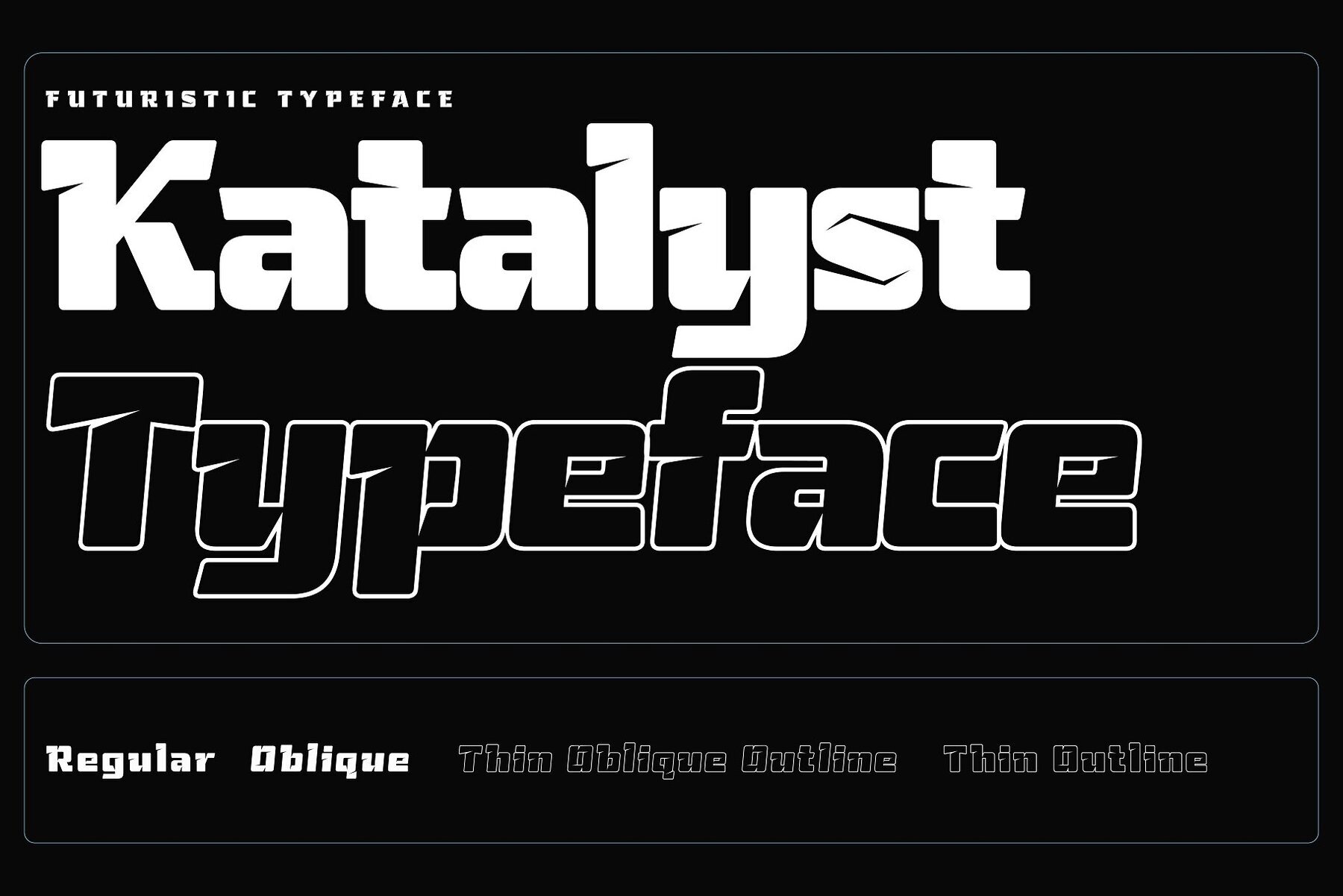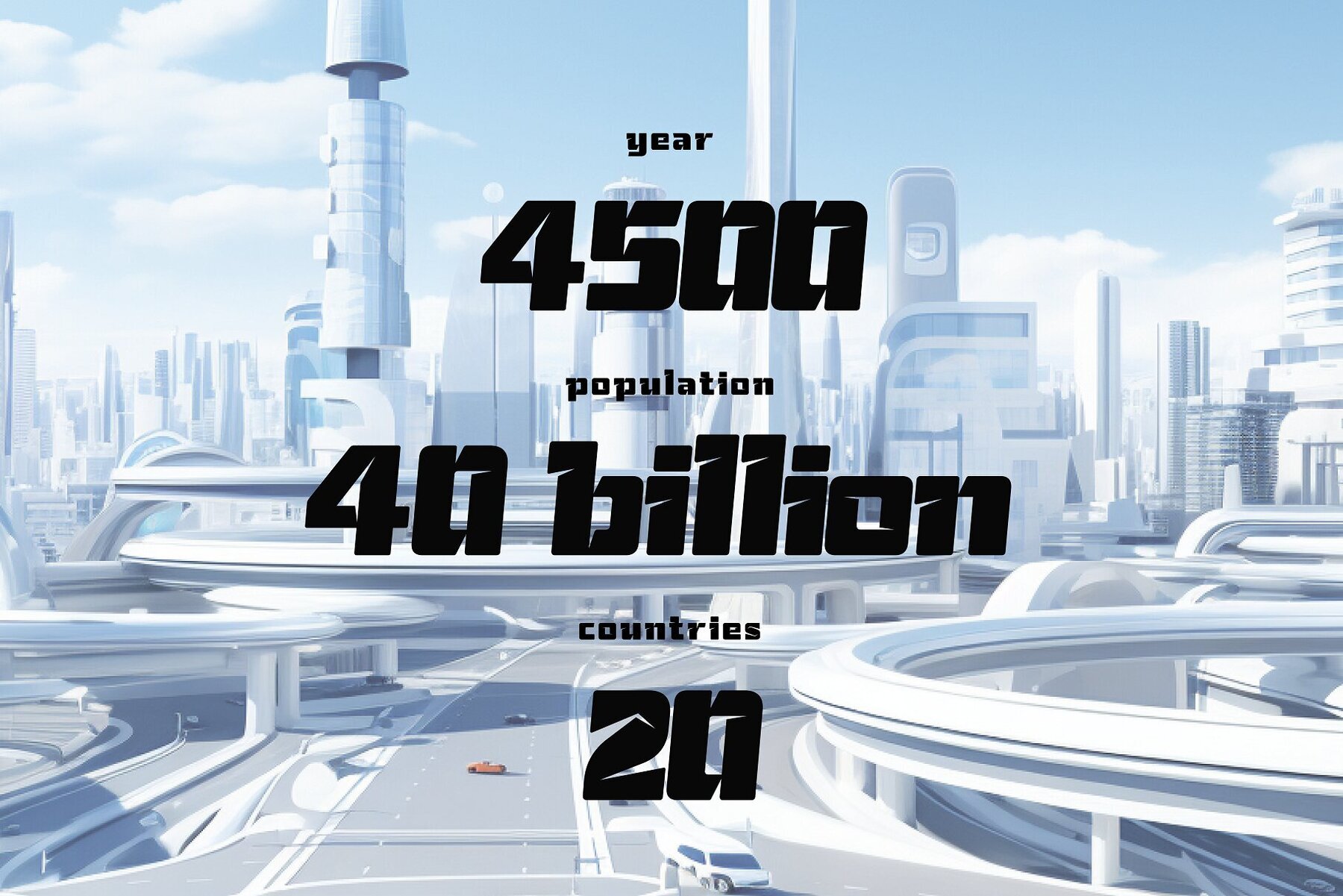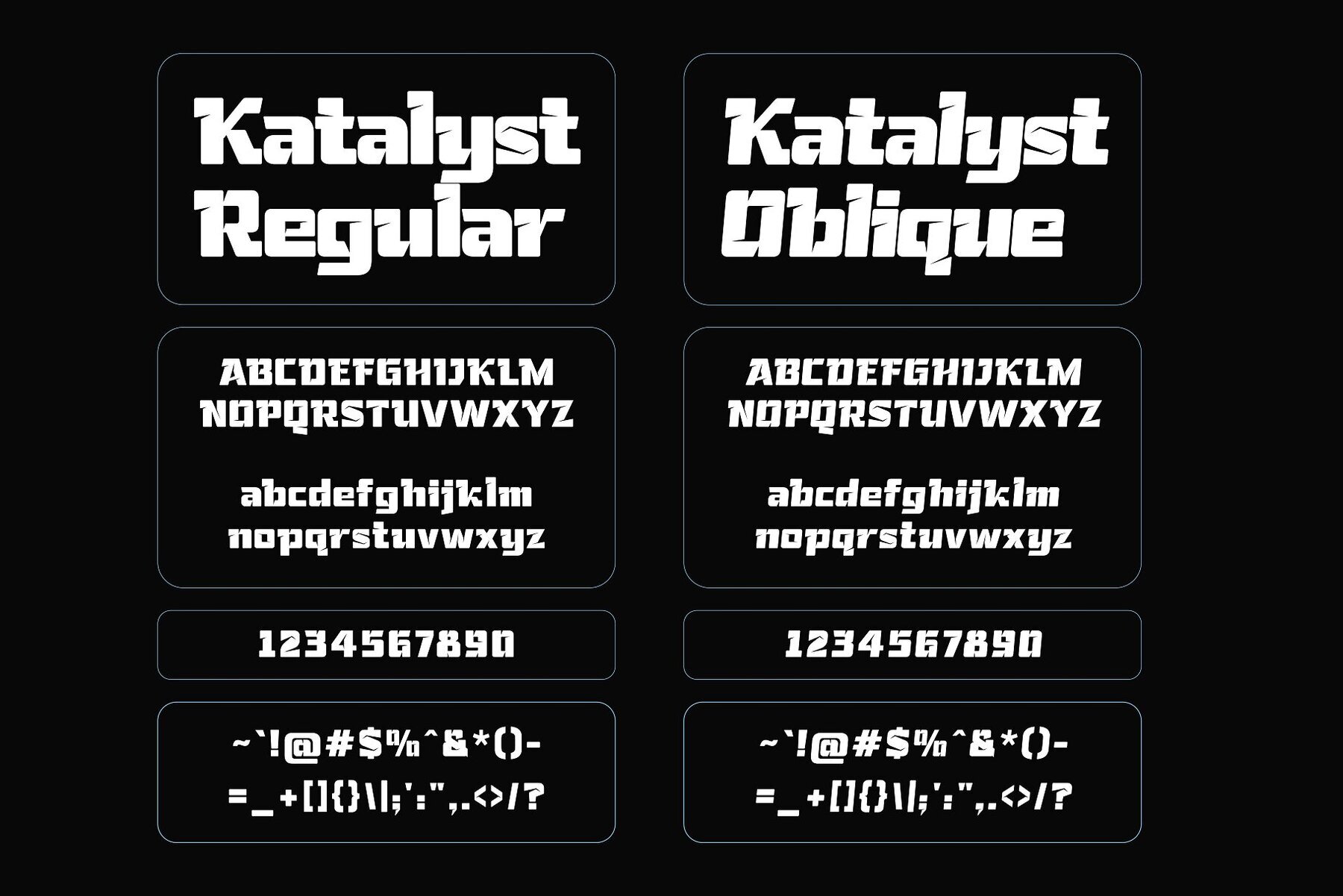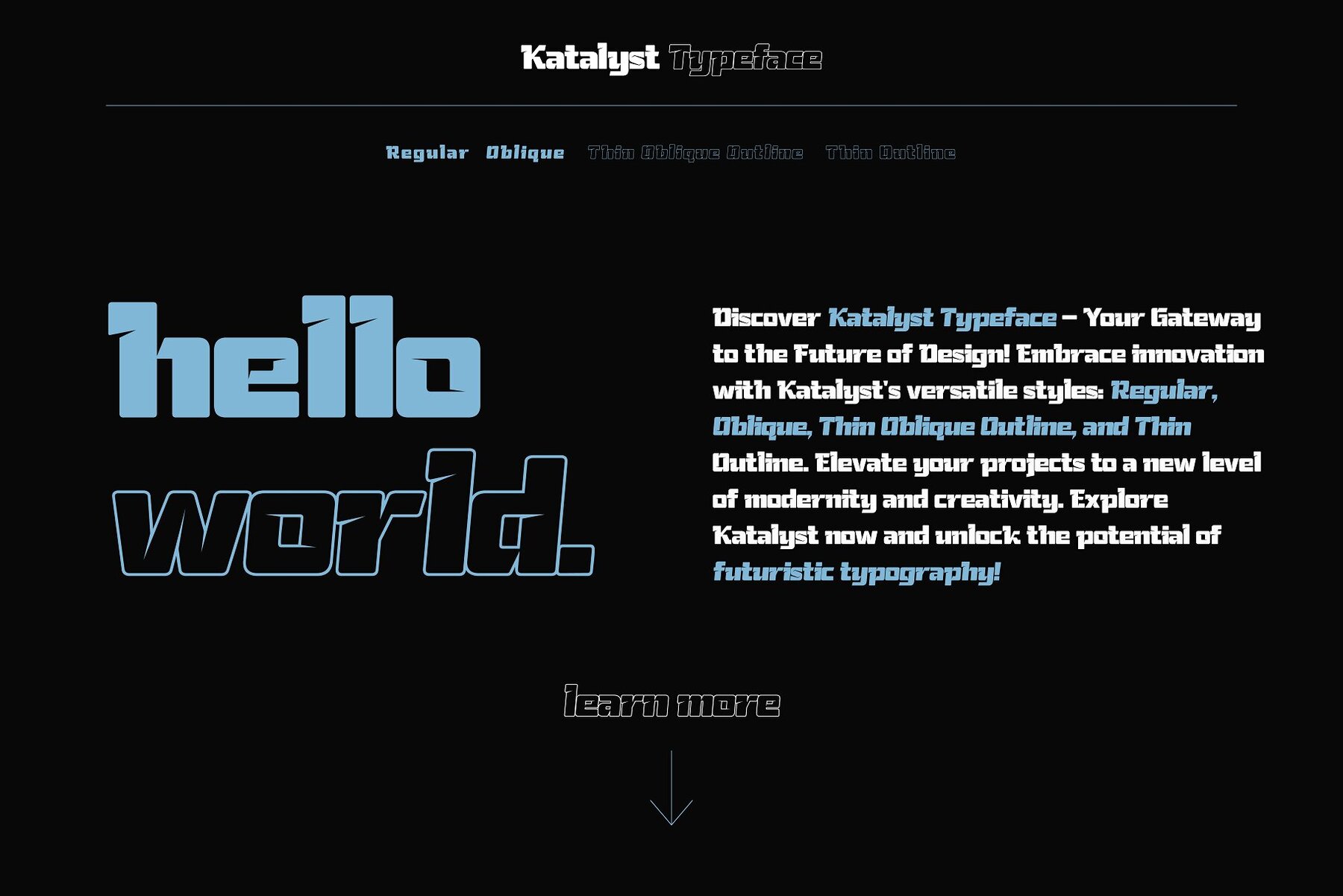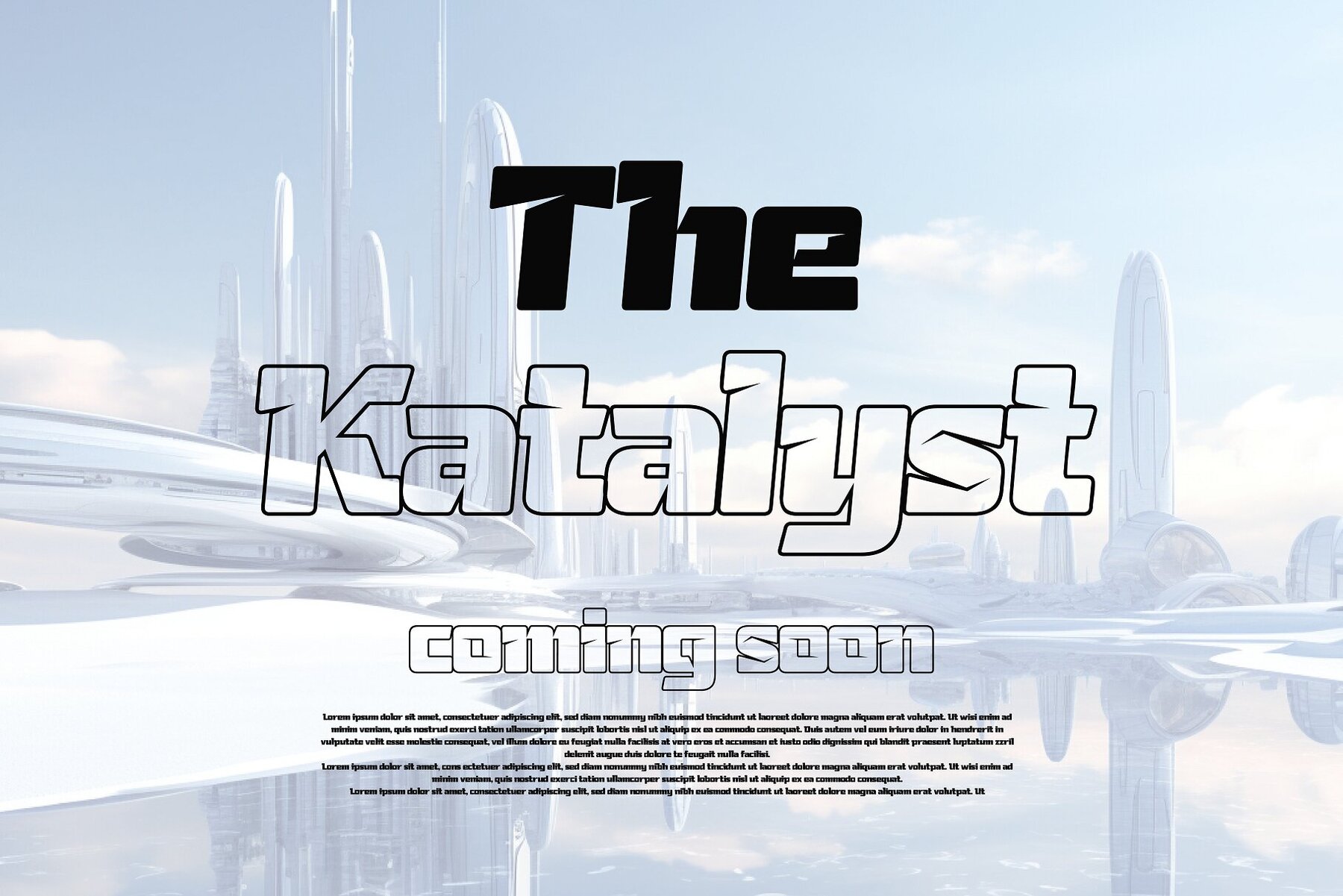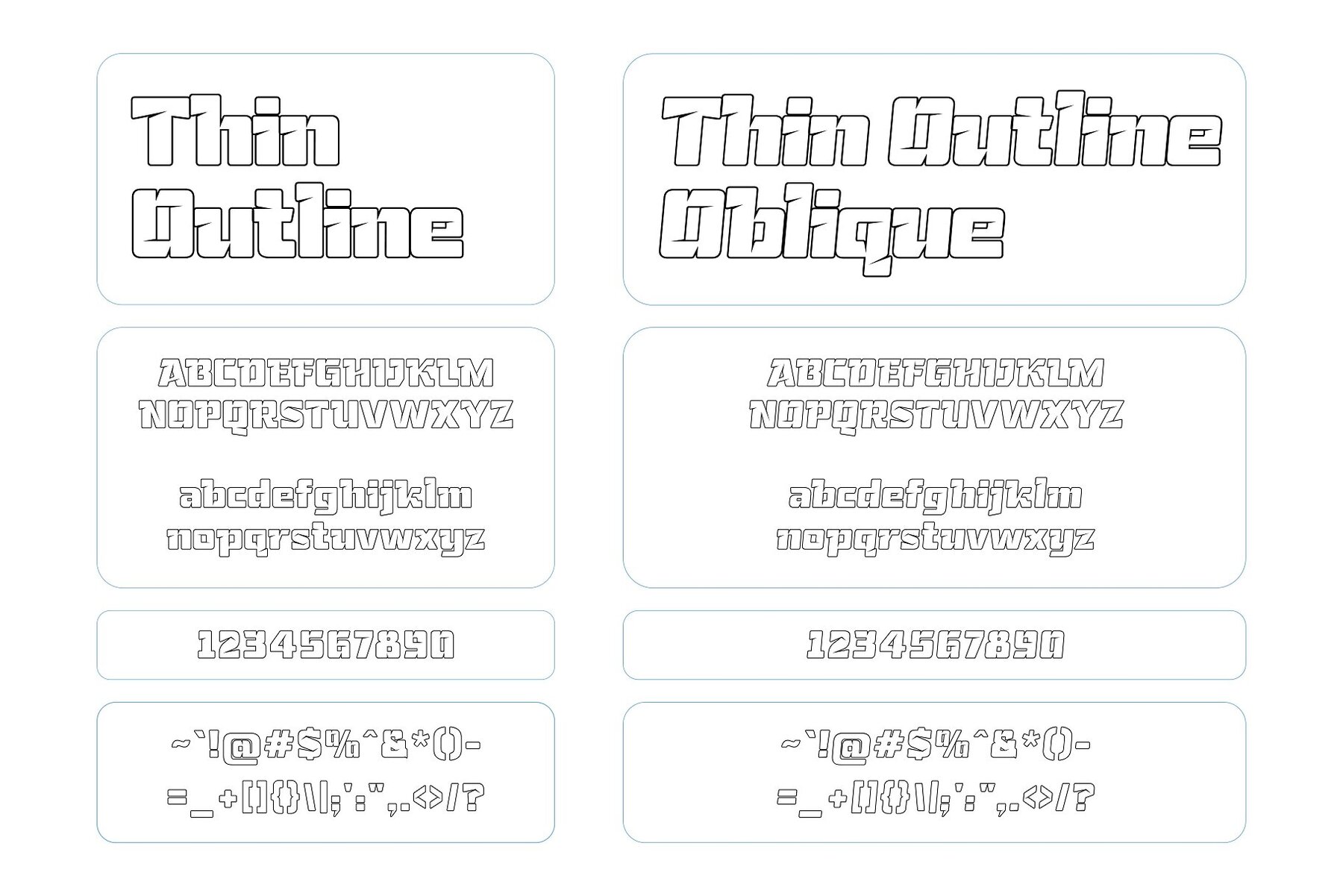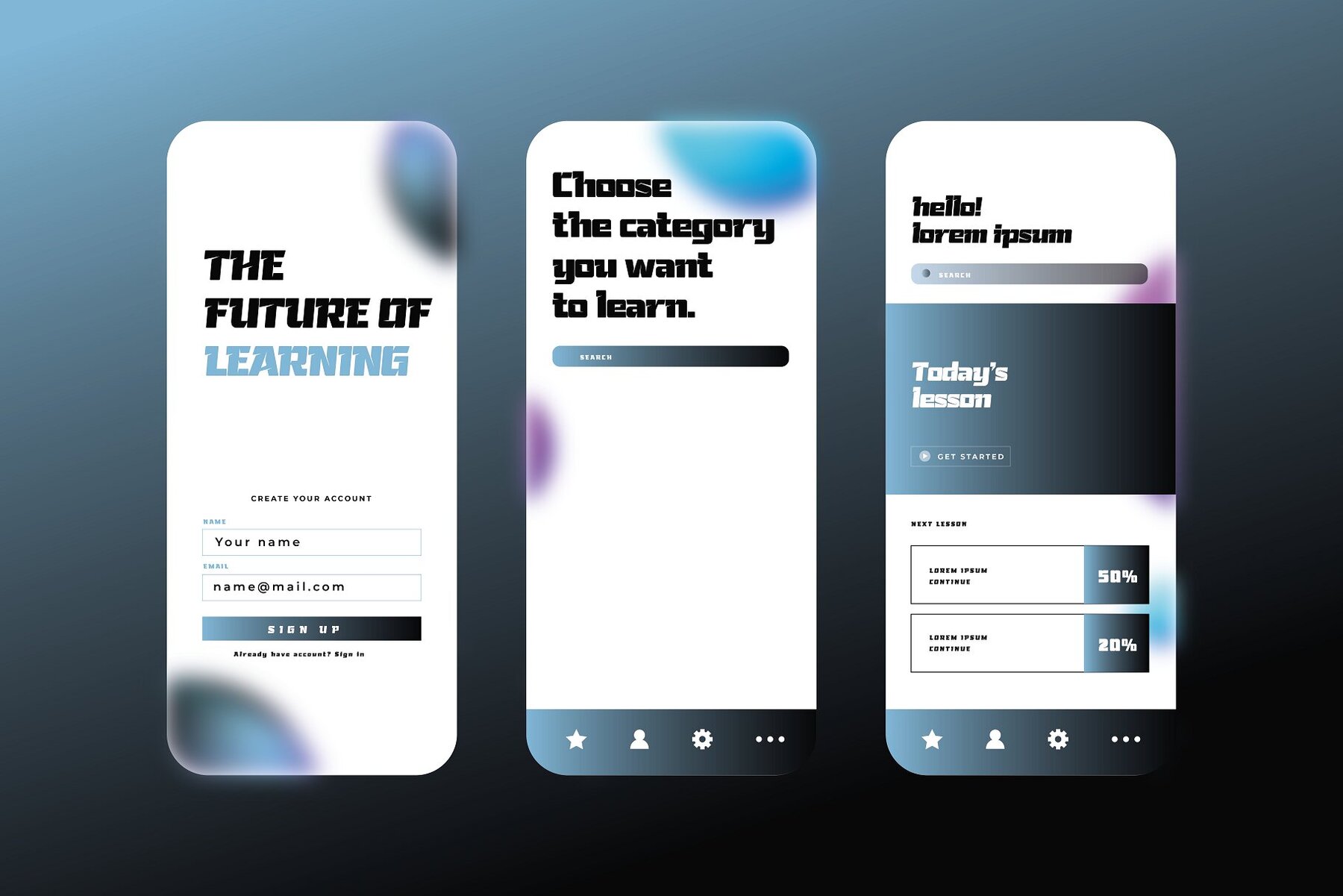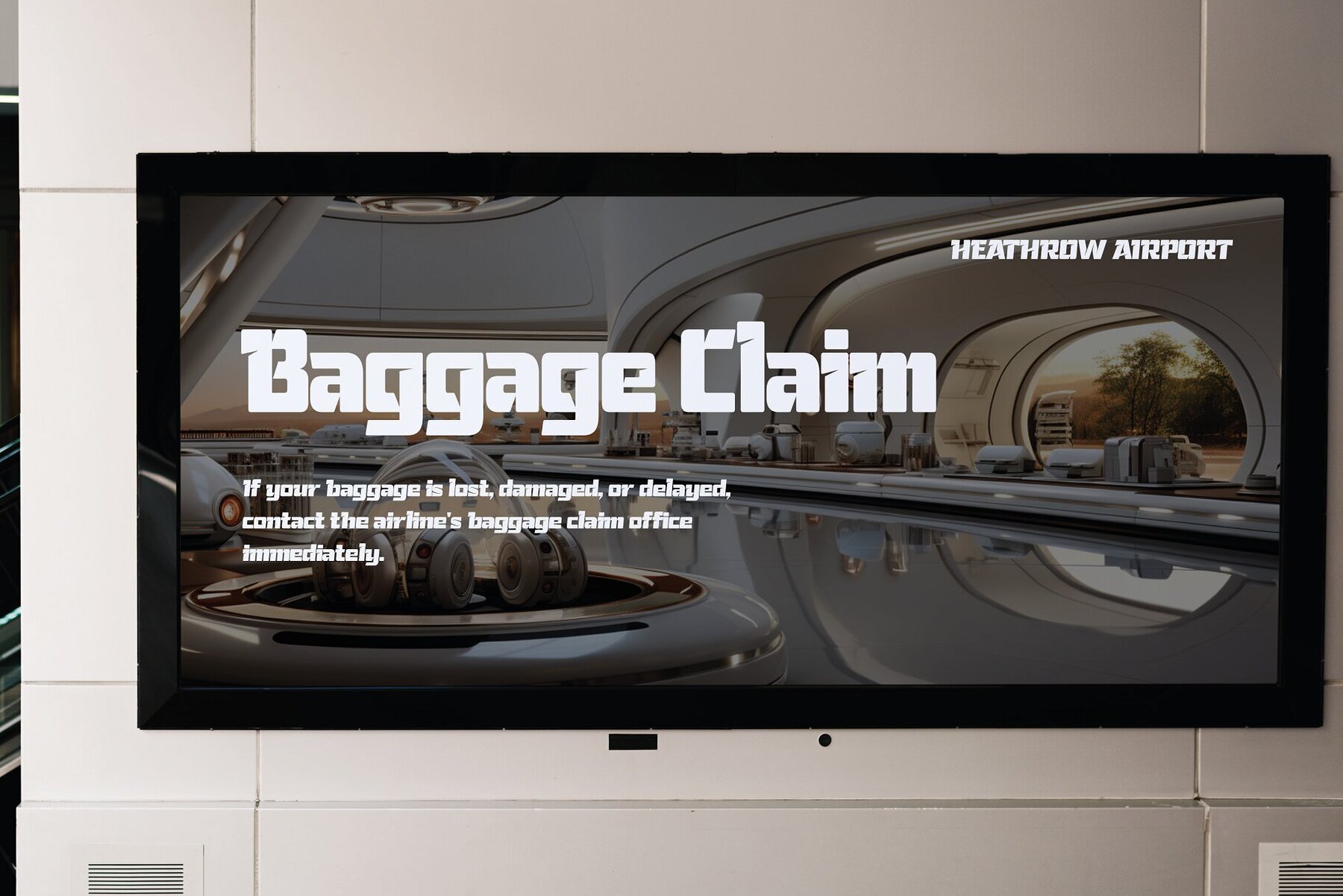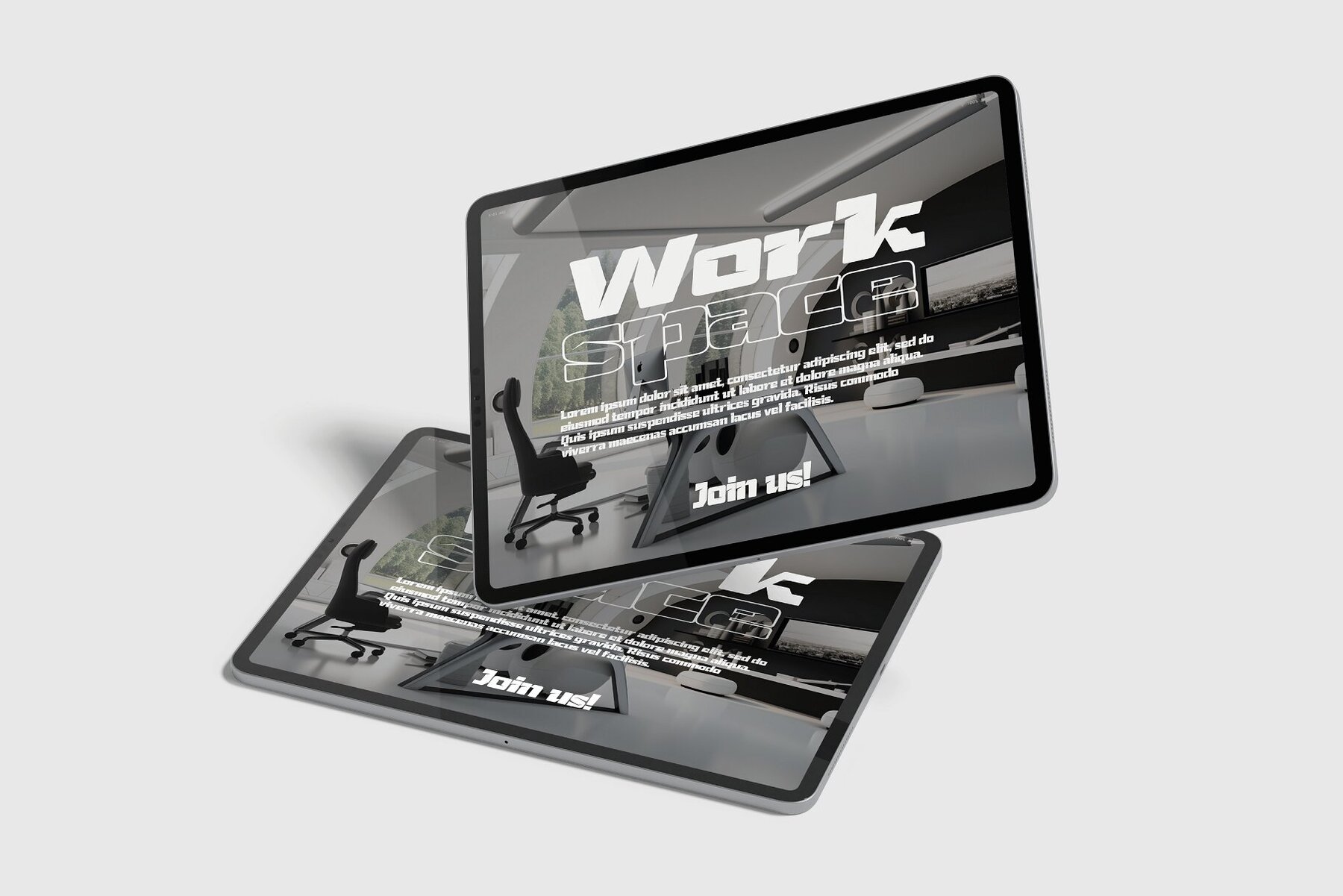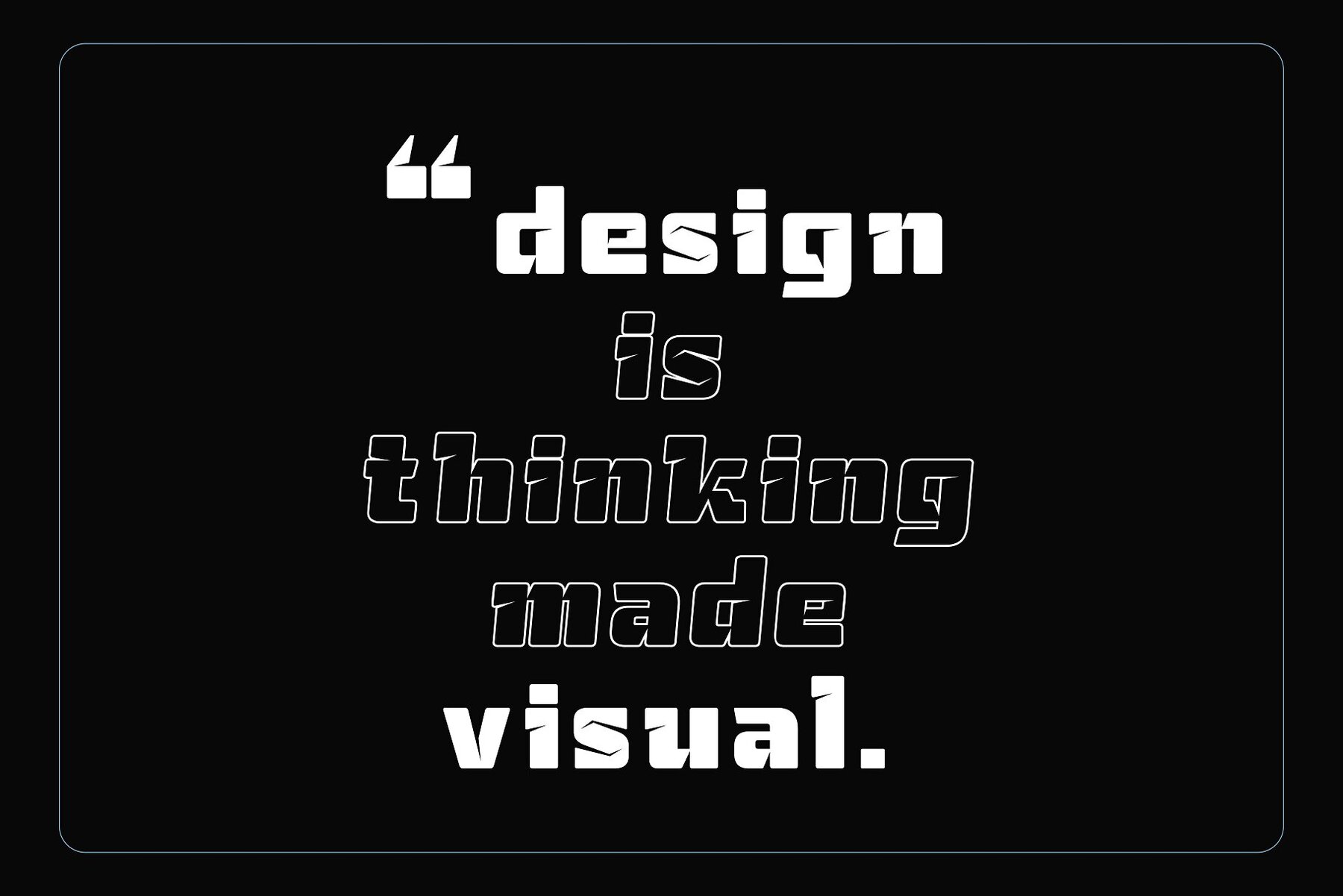
Katalyst Font
Introducing Katalyst, a futuristic typeface designed to ignite the spirit of speed, action, and forward momentum. With its cutting-edge design, Katalyst is perfect for a range of dynamic applications, including sports branding, racing graphics, and any project that demands a high-energy, impactful font. Katalyst offers both a regular and an outline version, providing designers with the flexibility to create stunning visuals that stand out. The regular version is bold and assertive, making a strong statement on any canvas. In contrast, the outline version offers a sleek, modern twist, perfect for layering and creating more nuanced designs. This typeface’s sharp, angular lines and aerodynamic style evoke the thrill of high-speed pursuits and the sleekness of modern technology. Whether you’re designing for a sports team, creating branding for a racing event, or crafting visuals for an innovative startup, Katalyst brings an edgy, contemporary feel to your work. Katalyst isn’t just a font; it’s a declaration of boldness and innovation. Its versatility makes it ideal for logos, headlines, and any digital or print media that requires a touch of futurism. If you’re looking to propel your designs into a new era and capture the essence of speed and agility, Katalyst is the typeface that will take you there.